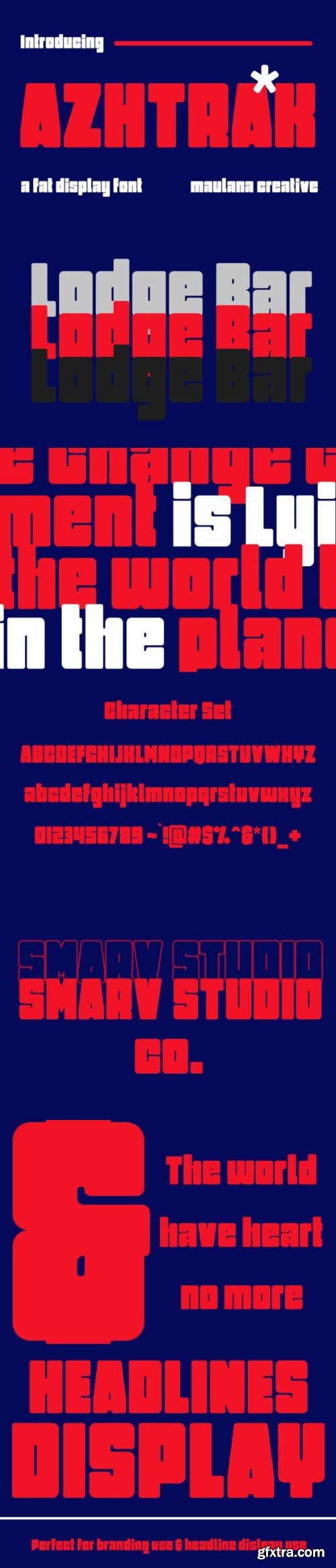
阿扎特克字体
Azhtrak is a modern fat condensed sans display font. Heavy stroke, fun character with a bit of ligatures and alternates. To give you an extra creative work. Azhtrak font support multilingual more than 100+ language. This font is good for logo design, Social media, Movie Titles, Books Titles, a short text even a long text letter and good for your secondary text font with script or serif. Make a stunning work with Azhtrak font.